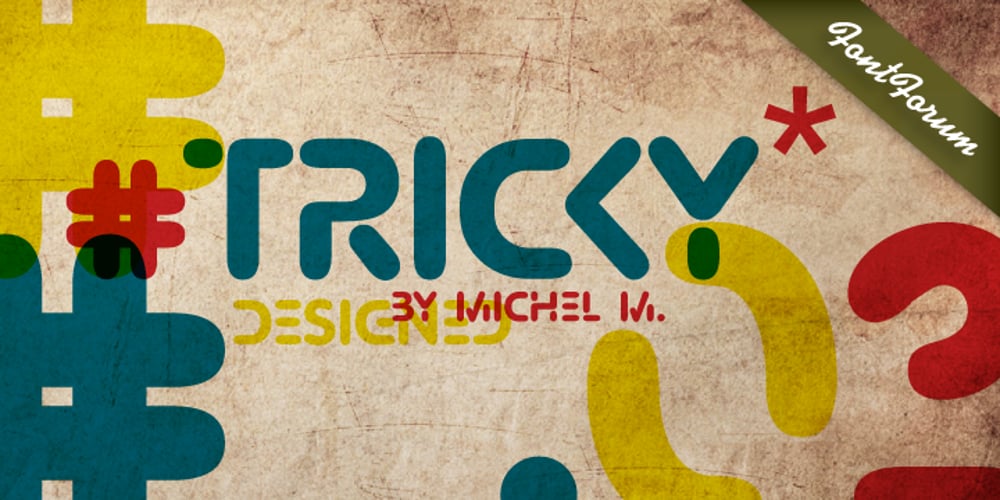
Tricky D Font Family was designed by Michel M. and published by URW Type Foundry. Tricky D contains 1 styles and family package options. Tricky is a modern and dynamic design which is enhanced and supplemented by Tricky Tracky following soon.